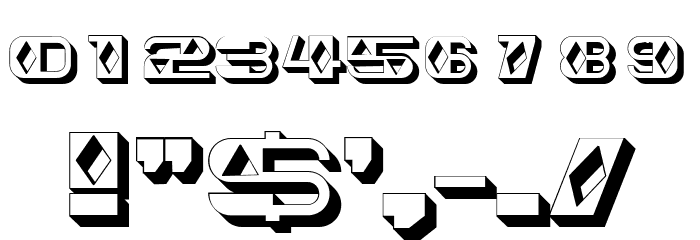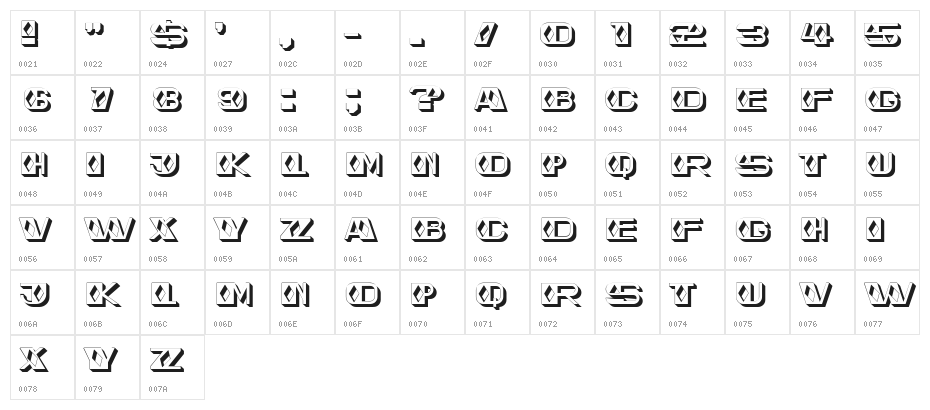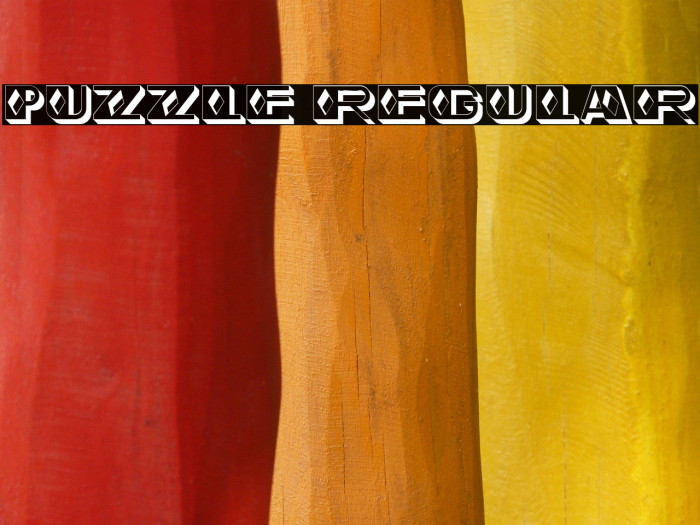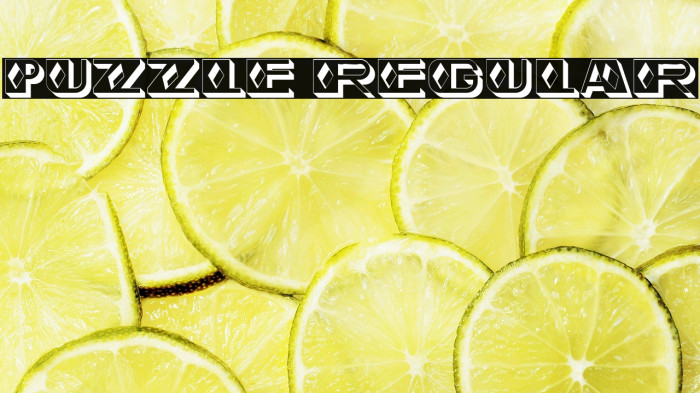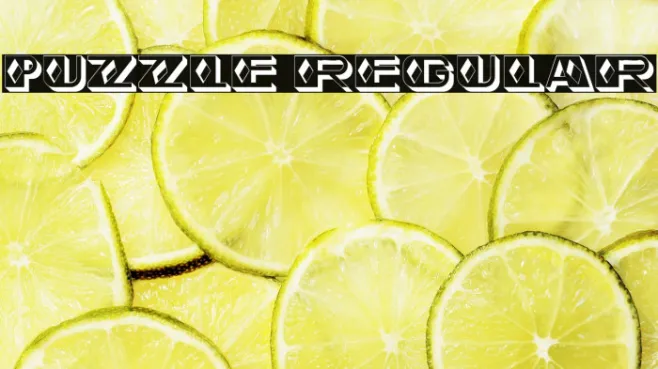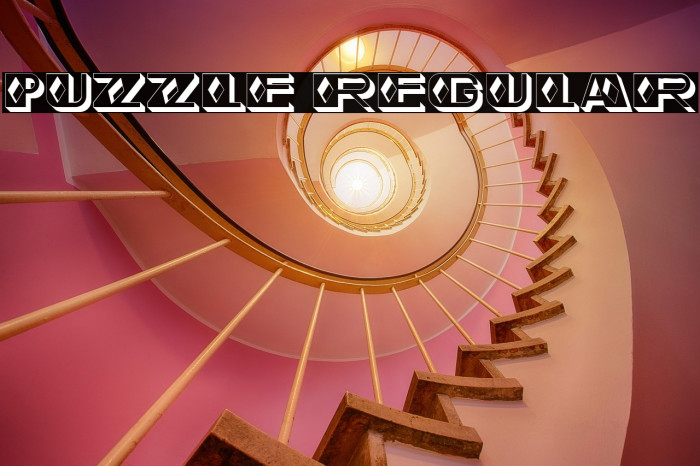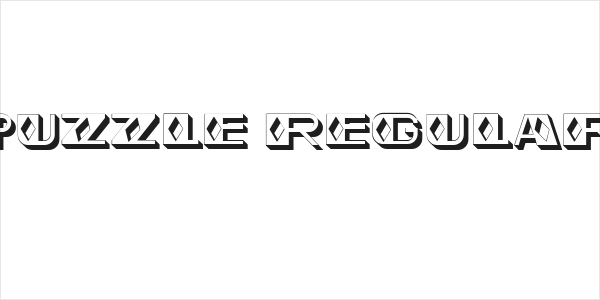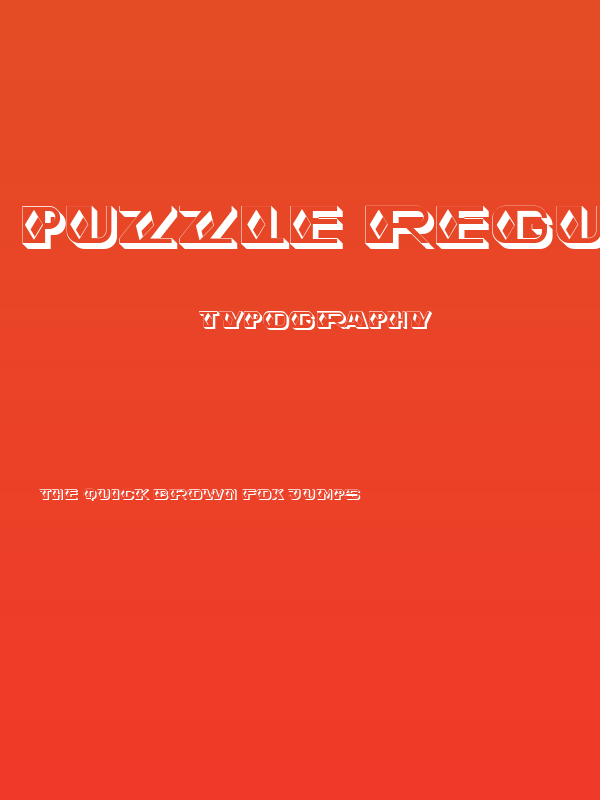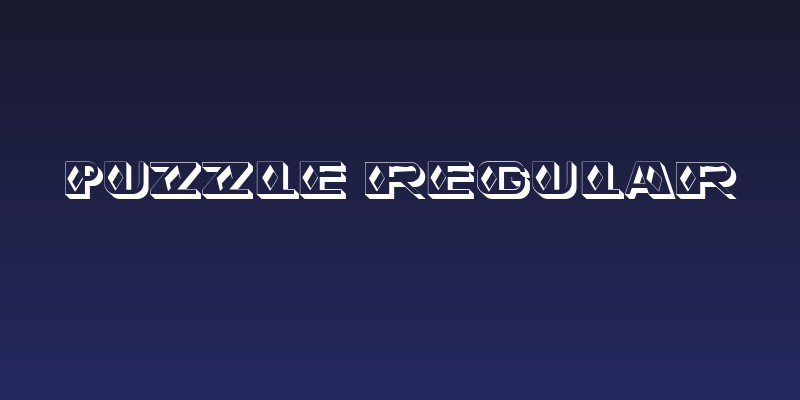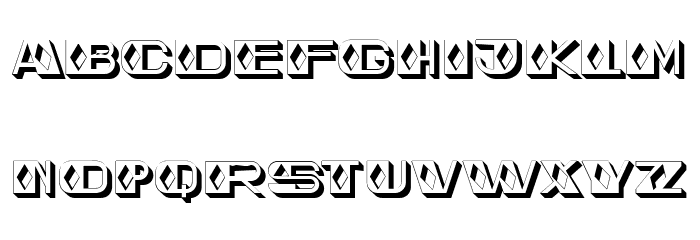
Puzzle Regular Font
Puzzle Regular Description
This font features a bold, geometric design with a three-dimensional effect. Each character is crafted with sharp angles and a distinct shadow, creating a sense of depth and movement. The letters are uppercase and have a consistent height, contributing to a uniform appearance. The style is reminiscent of puzzle pieces, with intricate cutouts and overlapping elements that add complexity and visual interest. The numbers and special characters follow the same design principles, ensuring cohesion across all glyphs. This font is ideal for projects that require a striking and modern aesthetic.
| Proposed Projects | Ideal for posters, logos, video game graphics, and modern branding. |